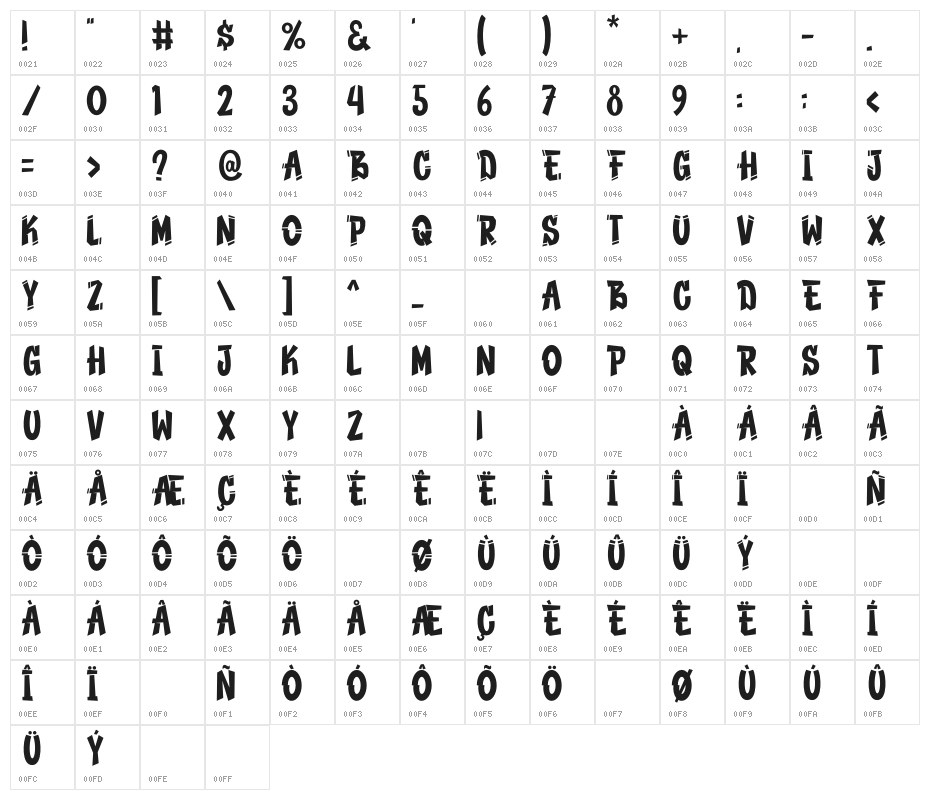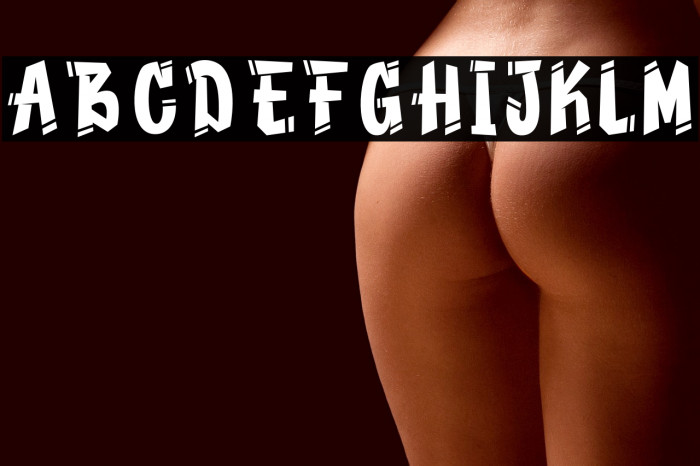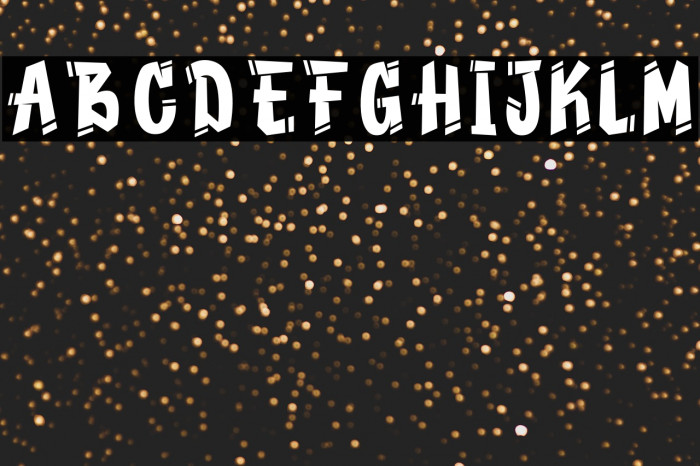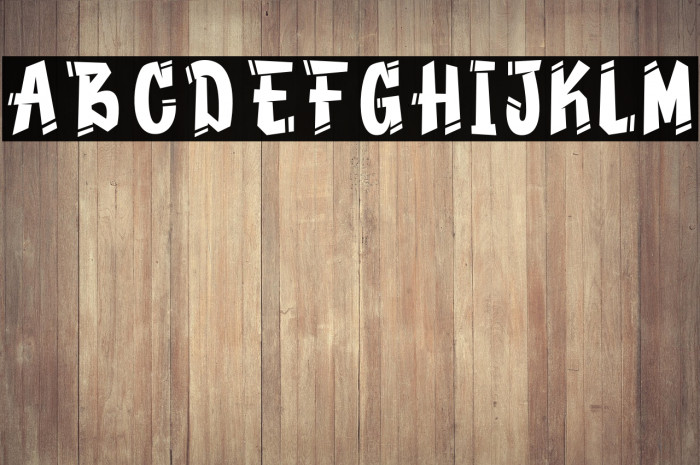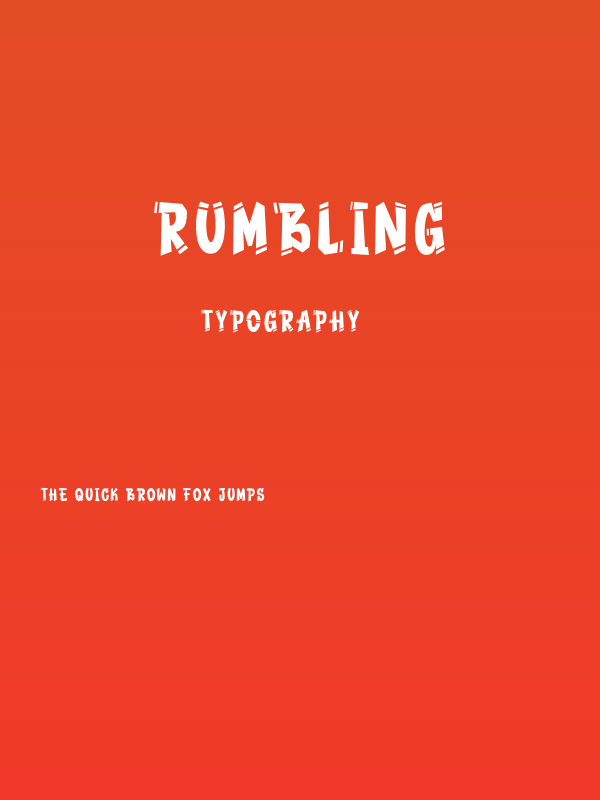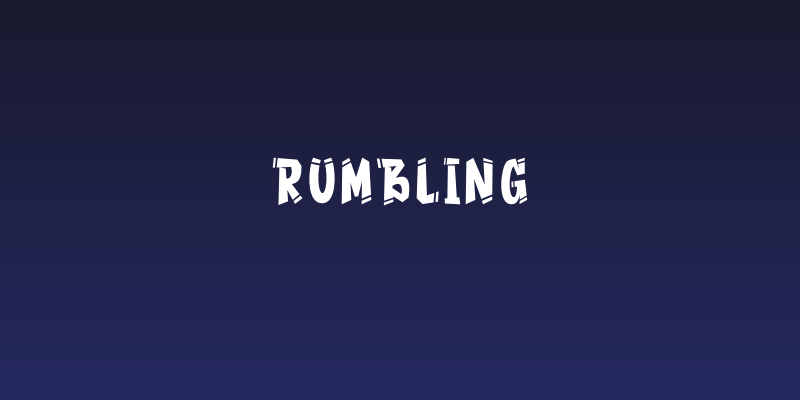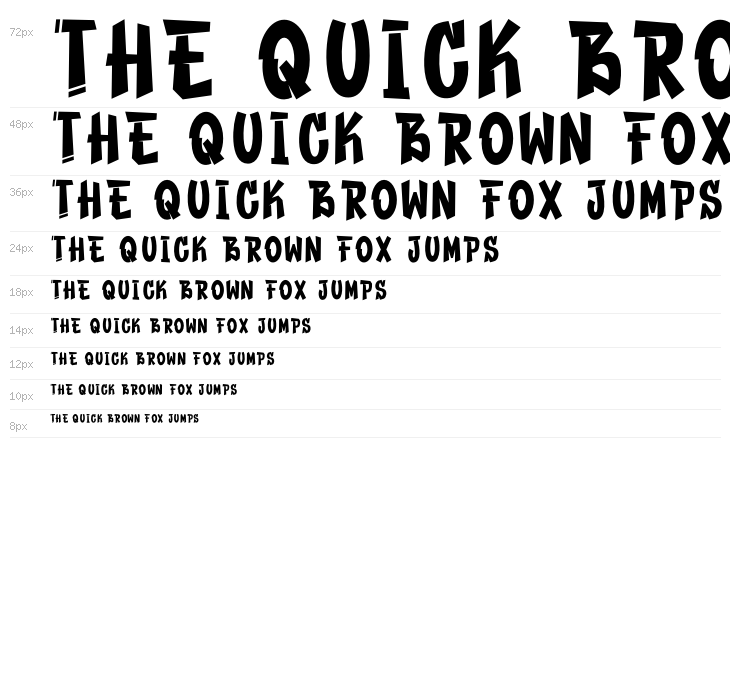
Rumbling Font
Rumbling Description
This font features a bold and dynamic design with a distinctively rugged and edgy appearance. The characters are crafted with sharp angles and irregular cuts, giving them a unique, distressed look. The uppercase and lowercase letters maintain a consistent style, with a slightly condensed form that enhances their boldness. The numbers and special characters follow the same design principles, ensuring a cohesive appearance across all elements. The font's high contrast between thick and thin strokes adds to its dramatic and impactful presence, making it ideal for attention-grabbing designs.
| Proposed Projects | Ideal for posters, logos, and branding projects that require a bold, impactful statement. |